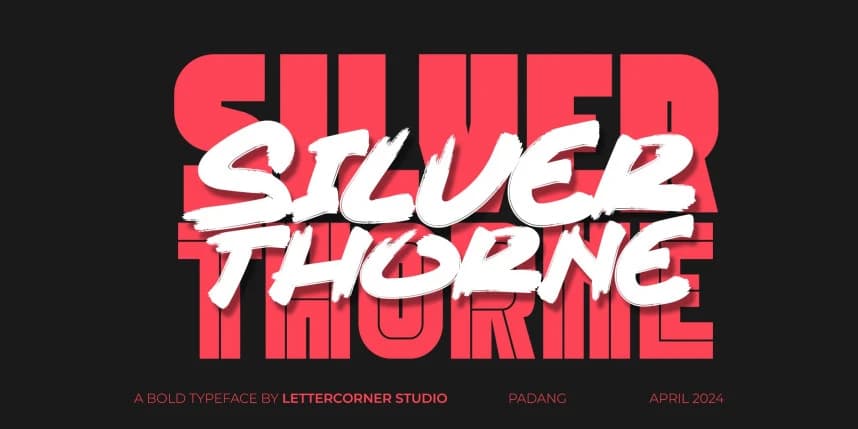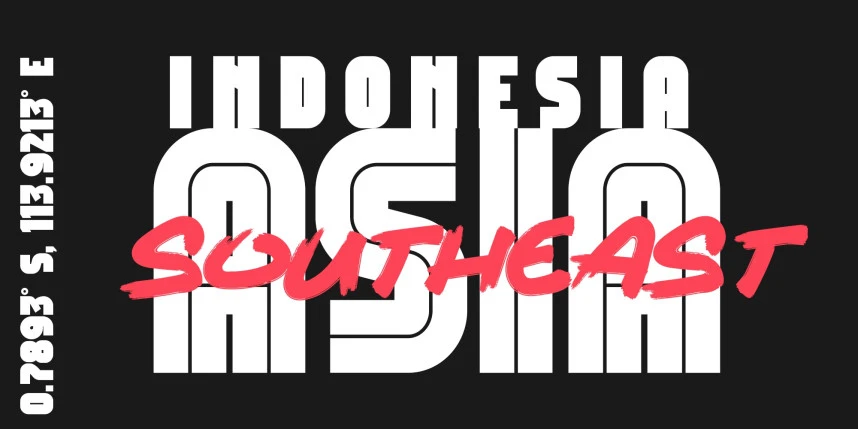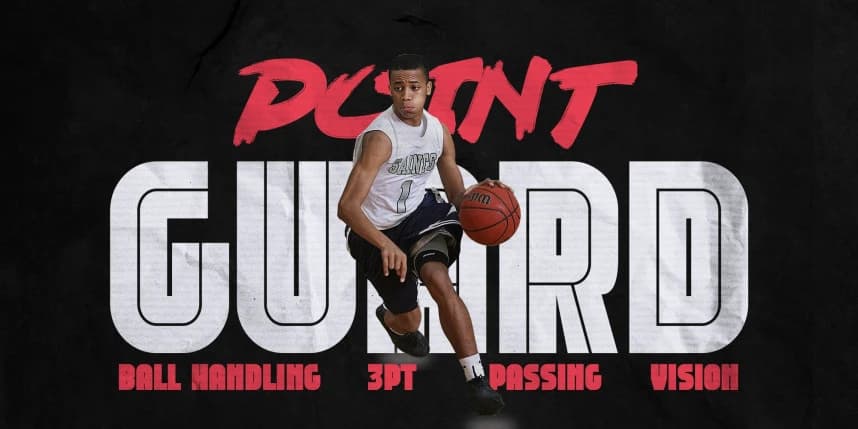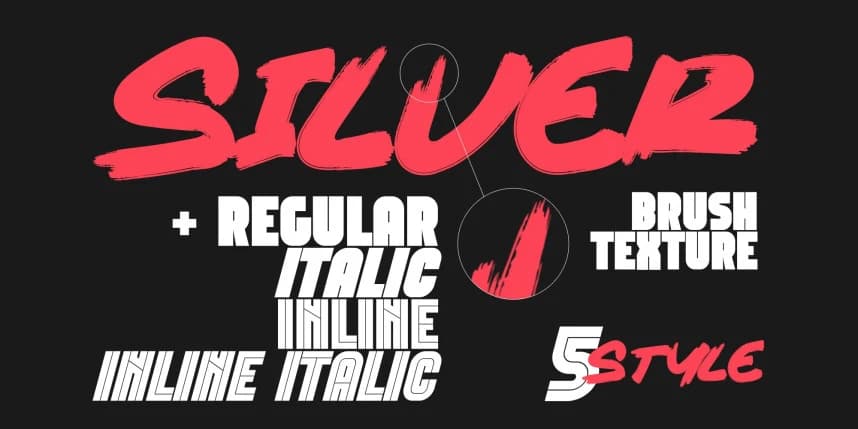
Silverthorne Font
Silverthorne Font is a handwriting brush effect and sans serif. This font style inspired by urban style and branded makes in many ways for your latest project. Silverthorne is perfect for logos & branding, photography, invitations